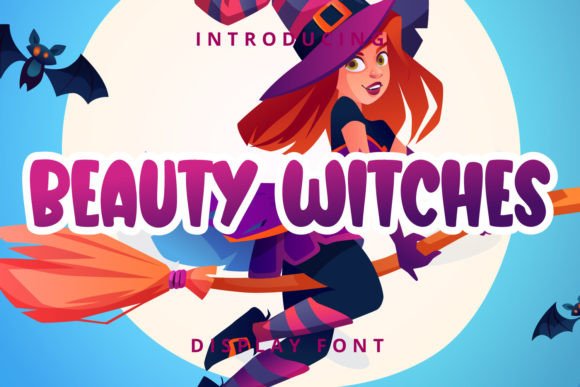
Prepare yourself to be mesmerized by the enchanting Beauty Witches Font, a whimsical and delightful creation that will cast a spell on your designs. With its playful and charming curves, this display font will ignite your imagination and sprinkle a touch of magic into every project.
Unleash your creativity and adorn your party invitations with the Beauty Witches Font. Its enchanting glyphs will transport your guests to a world of wonder and delight. Transform your Halloween cards into spooky masterpieces, where this font's playful spirit will add a touch of whimsy to your eerie designs.
But the Beauty Witches Font's allure extends far beyond invitations and cards. Its versatile nature makes it the perfect companion for any crafting endeavor. Let your imagination soar as you create captivating designs that radiate joy and enchantment.
This font is not just a collection of letters; it's a gateway to a world of boundless creativity. Its captivating curves and charming details will effortlessly elevate your designs, making them stand out from the ordinary. Let the Beauty Witches Font weave its magic into your creations and experience the transformative power of fonts.